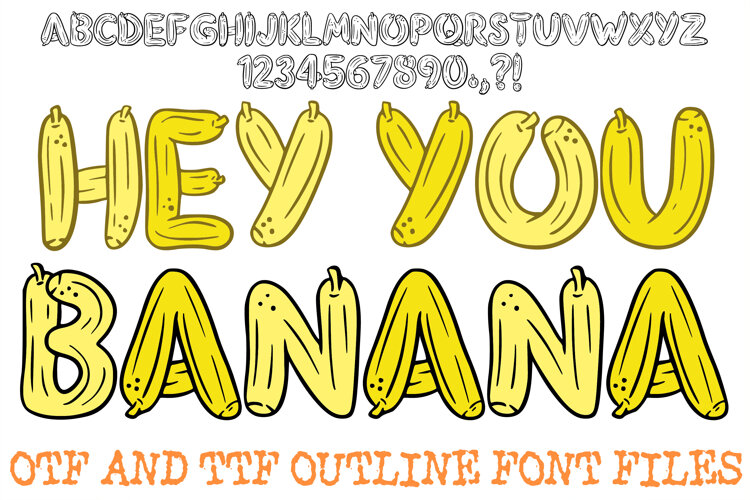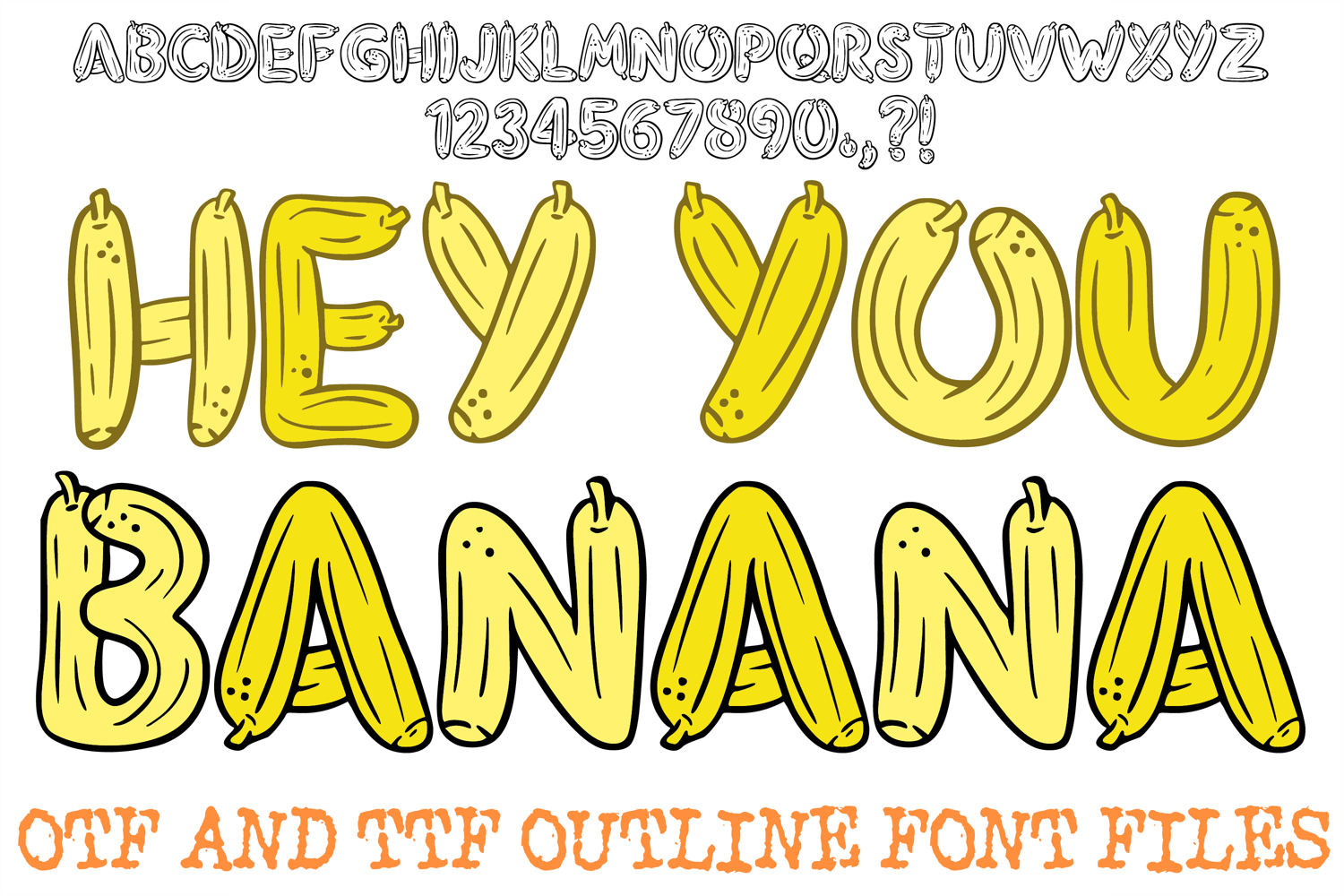
Bring a bright, humorous pop of fun to your projects with Yellow Banana, a fully installable display font designed to look like ripe, curved tropical fruit. Featuring hand-drawn letterforms complete with realistic peel outlines, stem tips, and spot detailing, this typeface brings a playful and quirky vibe to every layout.
Ideal For:
Summer & Tropical Crafts: Party banners, tropical event signage, birthday invitations, and summer decor.
Apparel & Merch: Funny graphic t-shirts, children's clothing, tote bags, and summer accessories.
Playful & Kids' Design: Nursery art, school projects, children's book headers, and sticker sheets.
Vinyl & Cutting Projects: Craft machine creations, custom decals, print-on-demand layouts, and cute stationery.